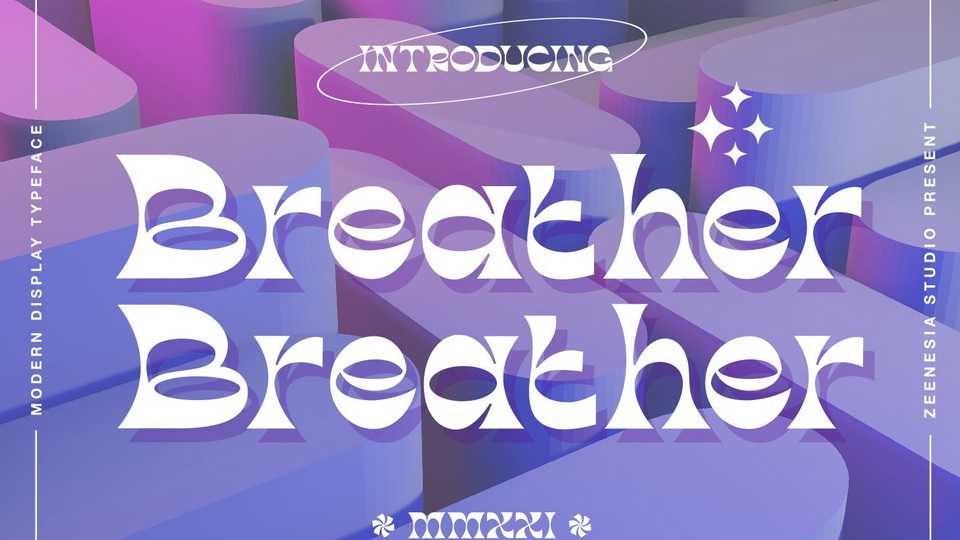
Download Breather font, a bold reverse contrast display typeface with a playful retro vibe. Perfect if you need a dose of fun in your project. Breather is a unique display typeface perfect for gorgeous logos and titles.
Designer: Zeenesia Studio